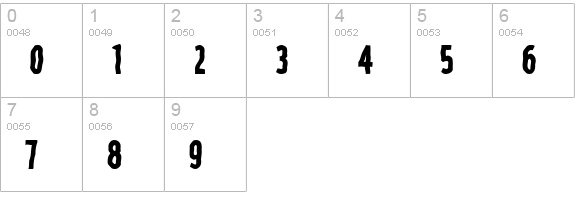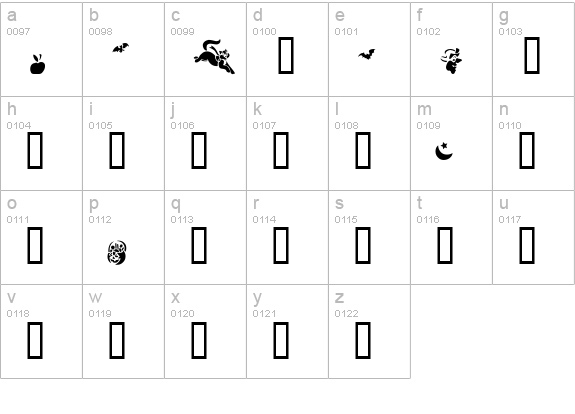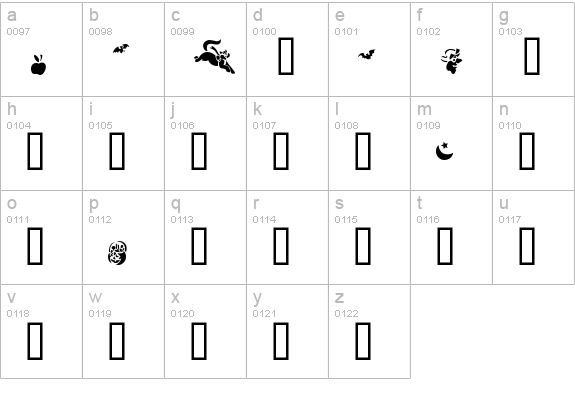
Spooky Font Details
Introducing the chillingly captivating Spooky font, a typeface that will send shivers down your spine and add an eerie touch to your designs. With its hauntingly elegant letterforms and mysterious curves, this font is a perfect choice for Halloween-themed projects, horror movie posters, spine-tingling book covers, and everything in between. What sets Spooky font apart from others is not just its spine-chilling aesthetic, but also the fact that it is available for free! That's right, this bone-chilling font can be downloaded freely at FontsMarket.com. Whether you're a graphic designer, a party planner, or someone looking to add a touch of macabre to your personal projects, Spooky font is the perfect choice. The versatility of this font is truly exceptional. It can be used to create everything from spooky party invitations to eerie website headers. Its sharp edges and sinister curves will give your designs a haunting allure that is sure to captivate and engage your audience. But don't let the name fool you, Spooky font is not limited to just Halloween-themed designs. Its unique and distinctive style can be incorporated into a wide range of projects, adding an element of mystique and intrigue. From gothic-inspired logos to dark and atmospheric branding, this font is a must-have for anyone seeking to create a memorable and haunting visual experience. So, if you're ready to embrace the dark side of design, look no further than the Spooky font. Download it for free today at FontsMarket.com and let your creativity run wild. Get ready to unleash the spine-chilling power of this font and leave a lasting impression on your audience.